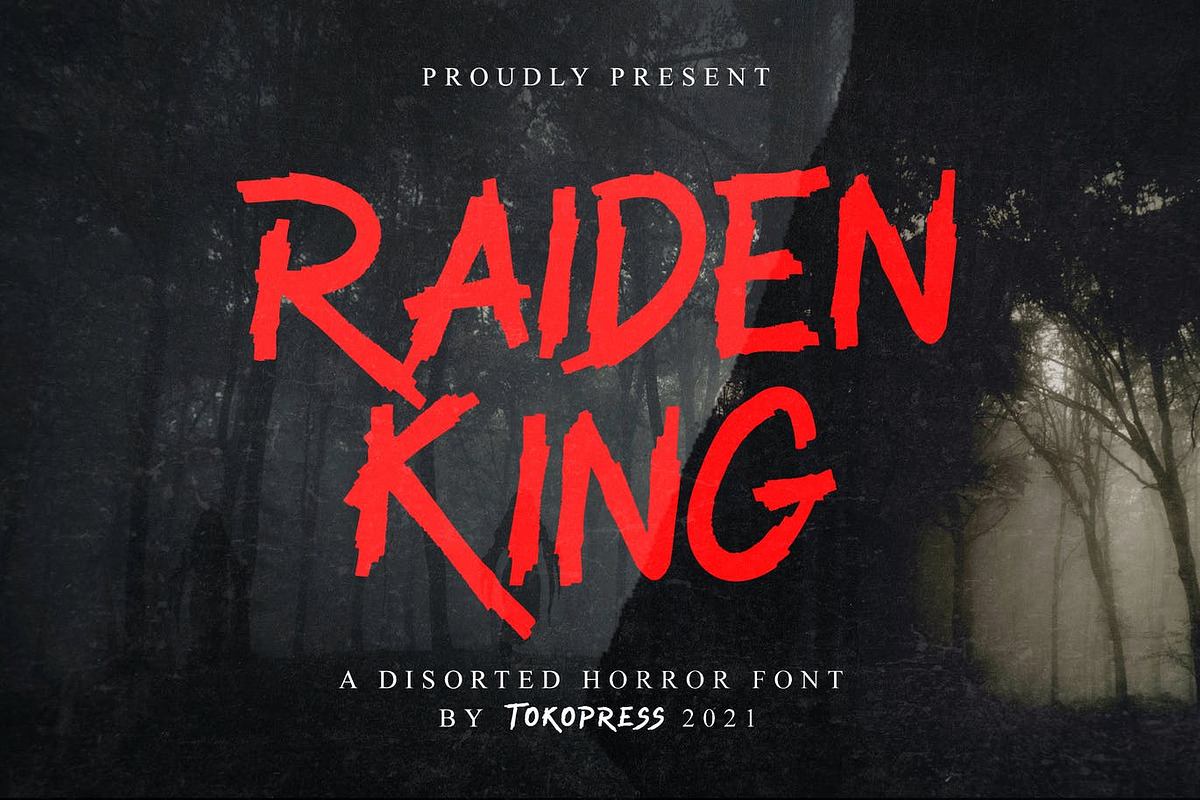
RAIDEN KING - Brush Font Free Download is a fierce, high-energy typeface that combines the raw texture of hand-painted brush strokes with bold, all-caps intensity. Perfect for sports branding, music covers, streetwear design, action movie posters, YouTube thumbnails, and edgy merchandise, this font commands attention with every letter.
Its rugged, expressive style gives your typography a dynamic and rebellious edge, making it ideal for projects that need power, motion, and attitude. Whether you're creating a bold logo or a high-impact headline, RAIDEN KING brings electric personality to your design.